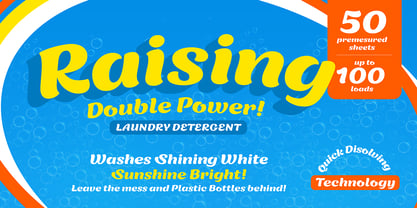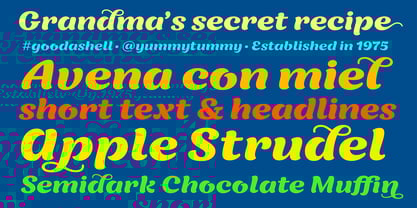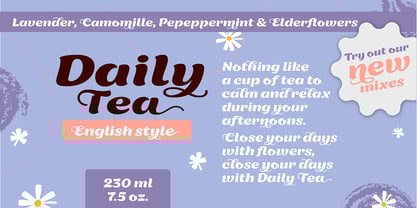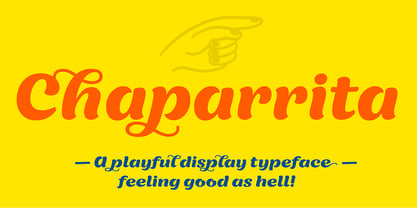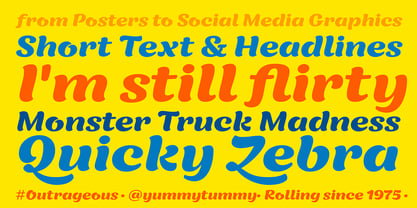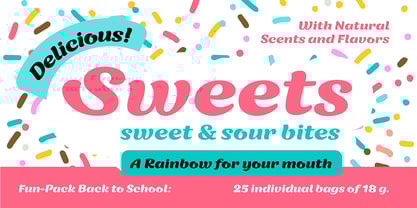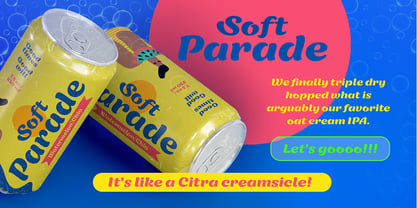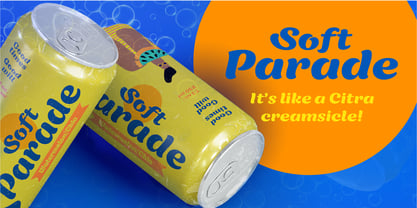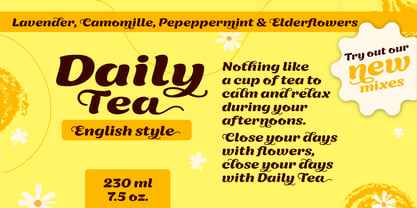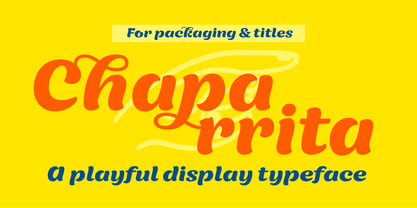
Chaparrita
by Cocijotype
The Chaparrita Font Family
was designed by
Dafne Martínez
and published by
Cocijotype. Chaparrita contains
Chaparrita is a playful display font, feeling good as hell!
Exudes vibrant and lively character. This marker-style typeface features substantial weight and dynamic curves, making it perfect for various applications. Ideal for packaging and branding projects, it adds a unique flair to product labels, ensuring they stand out on shelves. Whether used in posters or social media graphics, this font infuses lightheartedness and personality into your visuals, enhancing engagement and memorability. With its distinctive style, Chaparrita is perfect for creating eye-catching headlines, promotional materials, and any design that seeks to convey fun and creativity.